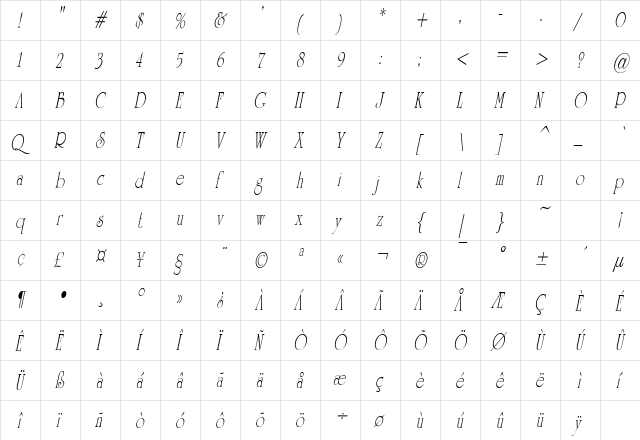
UniversityOrnateCondensed Italic
Design Context for UniversityOrnateCondensed Typeface
UniversityOrnateCondensed is a composed and adaptable typeface that performs quietly and consistently across a wide range of design contexts. The dynamic lean of this cut emphasises speed and emphasis in any layout. Its narrow stance lets it pack a punch even in space-constrained designs.
Pro Tip: Use UniversityOrnateCondensed for emphasis, pull quotes, and subheadings where its slanted energy can add rhythm to the layout.